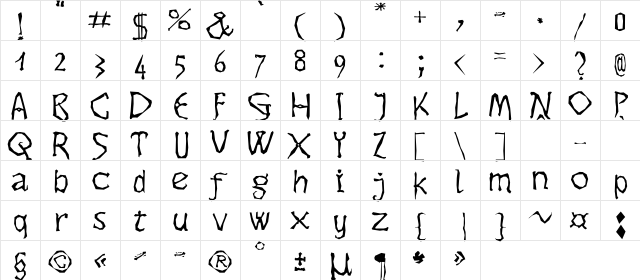
DikovinaC Regular
Design Context for DikovinaC Typeface
DikovinaC is a composed and adaptable typeface that performs quietly and consistently across a wide range of design contexts.